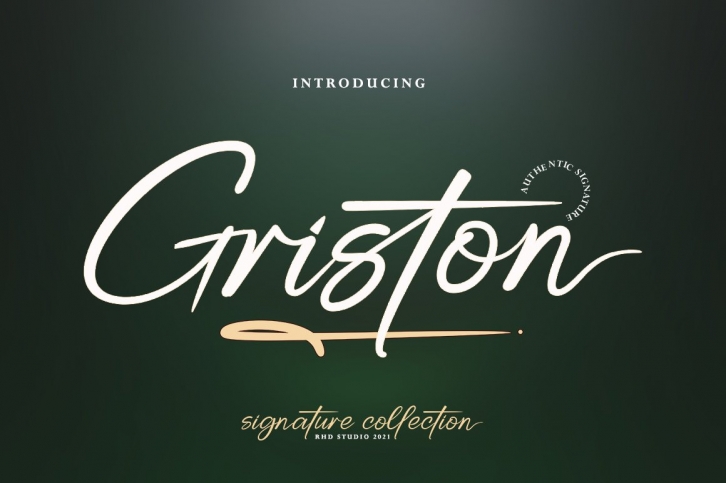
Griston is a gorgeous font that was realeased on September 22, 2021. The font can be used in many style contexts and design environments. Perfect for invitations, magazines, websites, logos, and more! It was designed by Rhd Studio Store and the file size is 15.1 MB. Thanks for checking out this font!